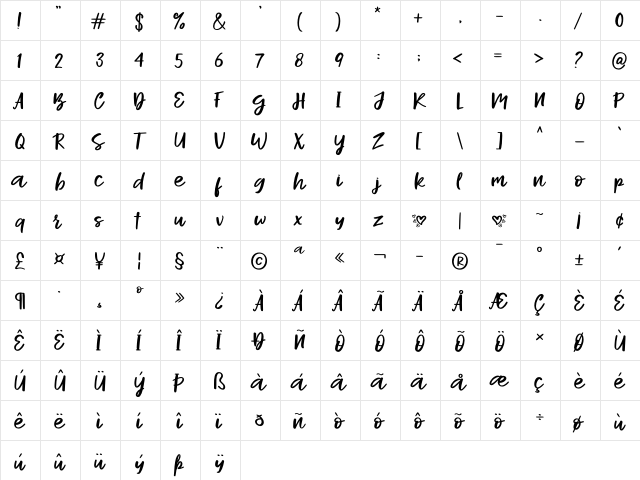
Hello Lovely - Personal Use Regular
Design Context for Hello Lovely - Personal Use Typeface
Hello Lovely - Personal Use is a composed and adaptable typeface that performs quietly and consistently across a wide range of design contexts.